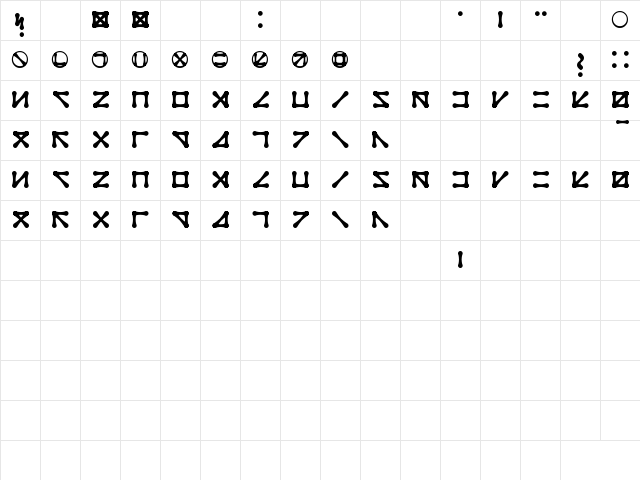
Q-Bert's Funeral Regular
Design Context for Q-Bert's Funeral Typeface
Q-Bert's Funeral trades formality for fun, with bouncy, characterful letterforms that bring warmth and energy to any project.
Font Pairing: Pairs well with a rounded or humanist sans for body copy, maintaining the friendly tone without relying on Q-Bert's Funeral to carry extended reading.
Pro Tip: Use Q-Bert's Funeral at larger display sizes where its expressive character can land. Pair with a clean, simple sans for body copy to maintain readability.